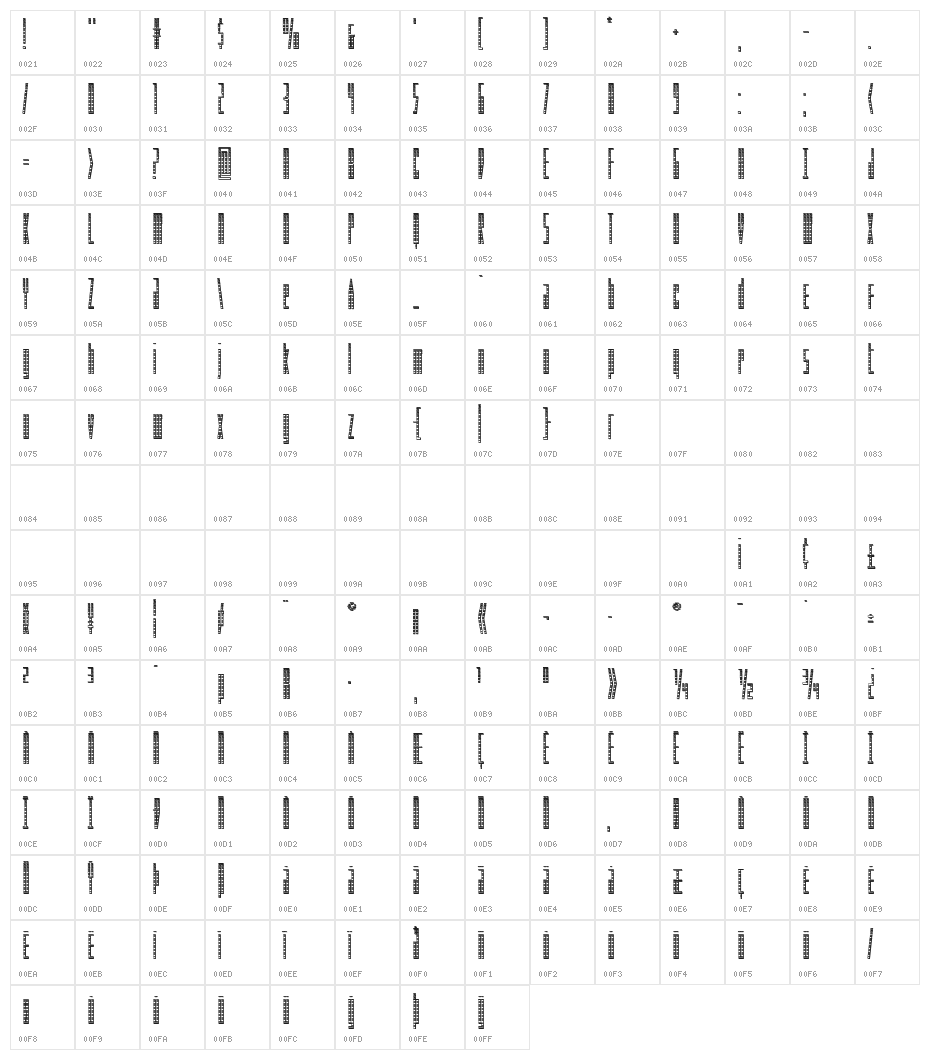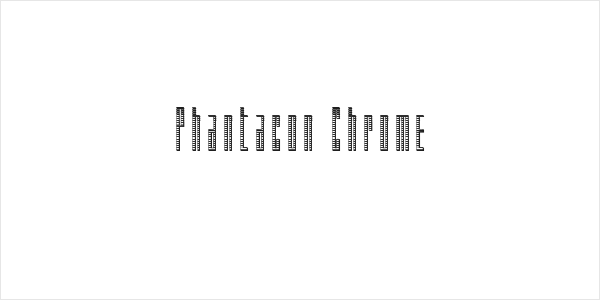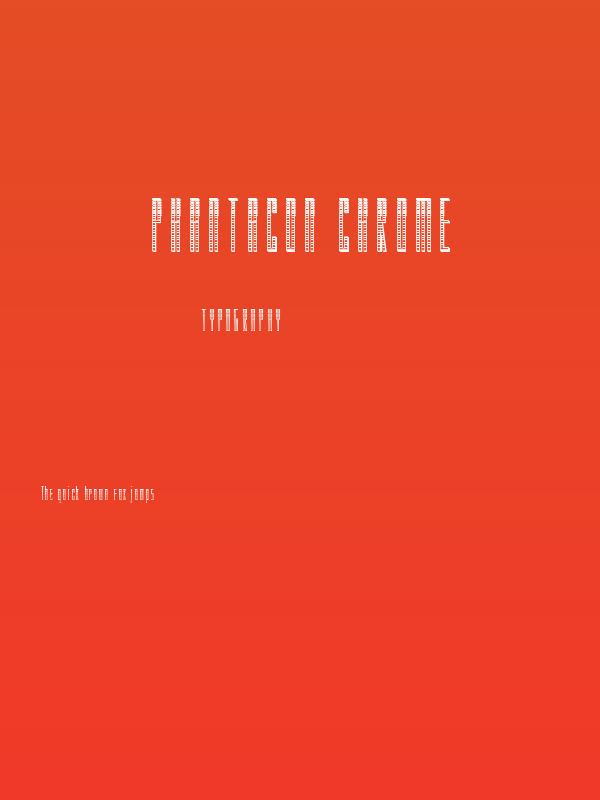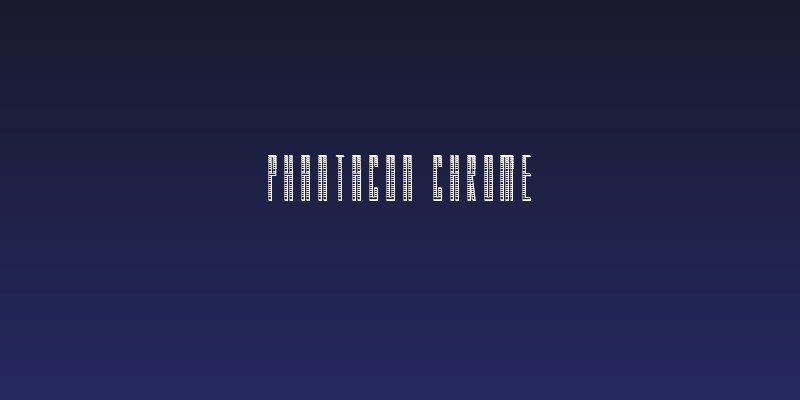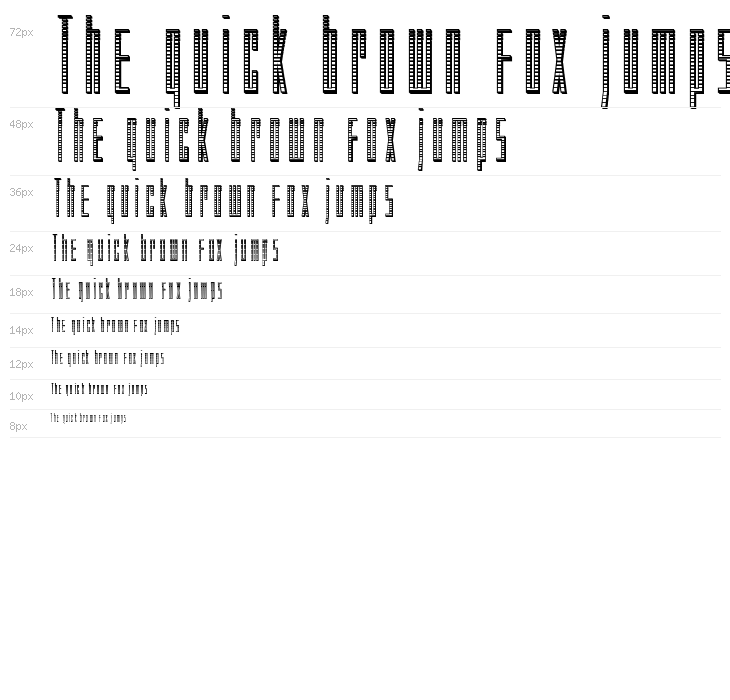
Phantacon Chrome Font
Phantacon Chrome Description
This font features a unique, decorative style with a futuristic and industrial aesthetic. The characters are tall and narrow, with a distinct three-dimensional effect created by the use of horizontal lines within each letterform. The uppercase and lowercase letters maintain a consistent height, contributing to a uniform appearance. The numbers and special characters follow the same design principles, ensuring cohesion across all elements. This font's intricate detailing and bold presence make it stand out, ideal for projects that require a modern and edgy look.